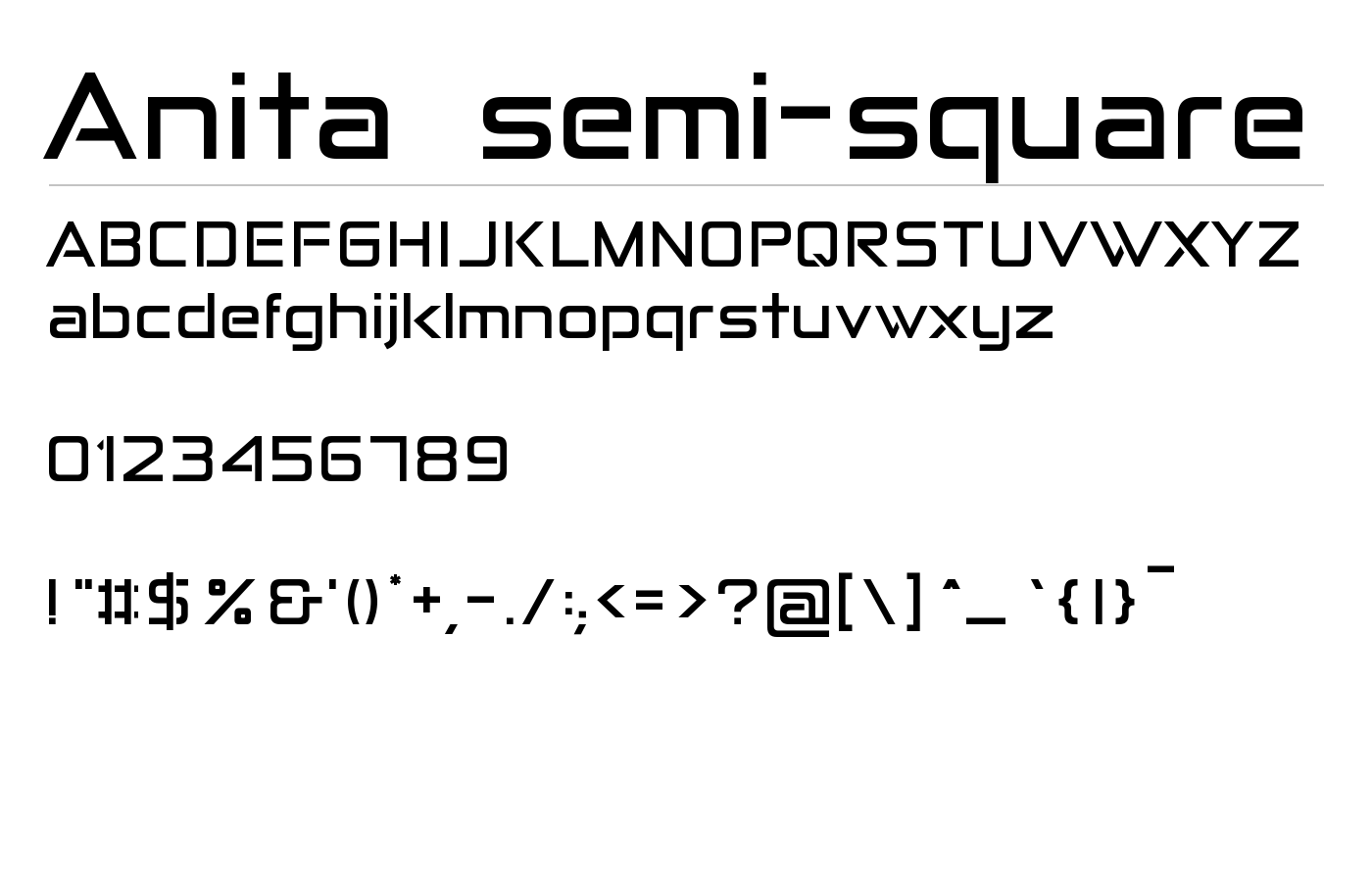
Anita Semi-square is a modern sans serif font characterized by its clean, semi-square letterforms that balance geometric precision with subtle curves. It features a regular weight with medium contrast and a higher x-height, making it clear and legible for digital and print use. This font’s contemporary, technical style suits branding, headlines, editorial design, and technology-themed projects where clarity and a sleek, futuristic look are essential.
Anita Semi-square Font
About Anita Semi-square Font
| Font family | Anita Semi-square Font |
| Designer | Gustavo Paz L |